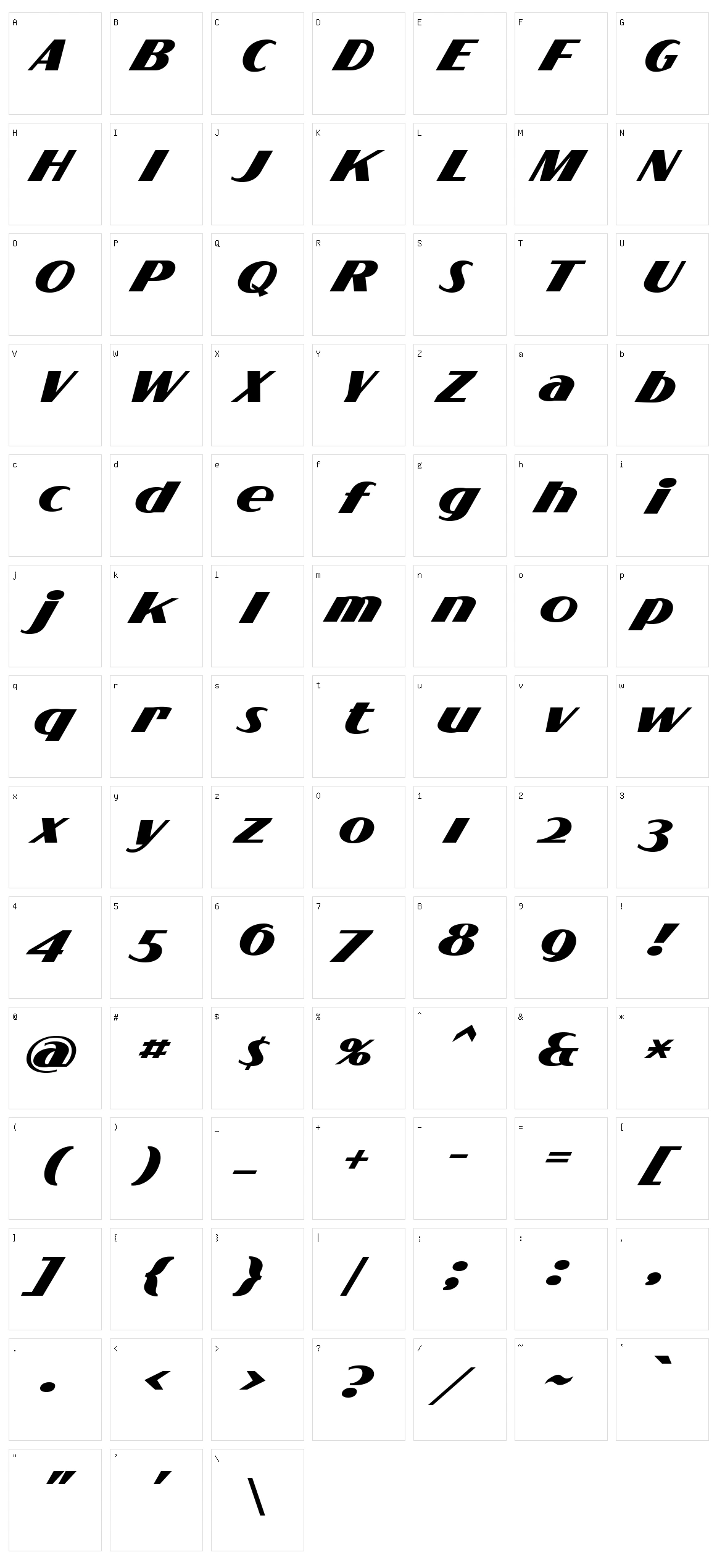
Flighter is a bold sans-serif typeface, in a somewhat geometric and balanced style.
It has speed and stability and should bring the thoughts to a mid 20th century traveler.
Created by Måns Grebäck in 2017-2018, this high-quality font has support for hundreds of languages.